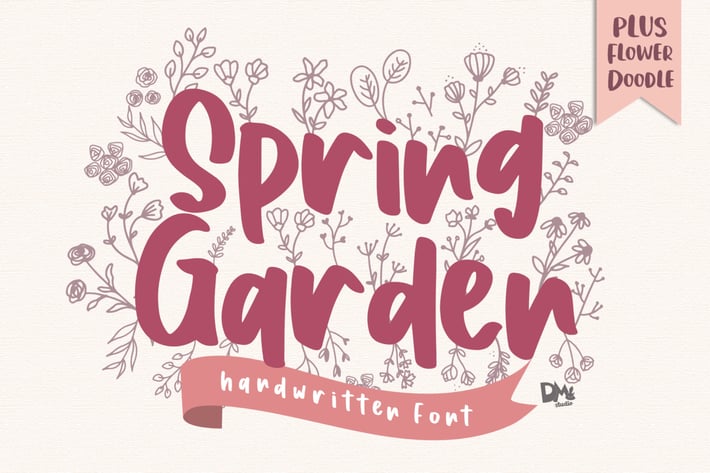
Spring Garden - Beautiful Handwritten Font
Spring Garden
Create the beautiful design with this beautiful font, Spring Garden! Including the floral doodles to make it more lovable!
- BONUS Floral Doodle Font